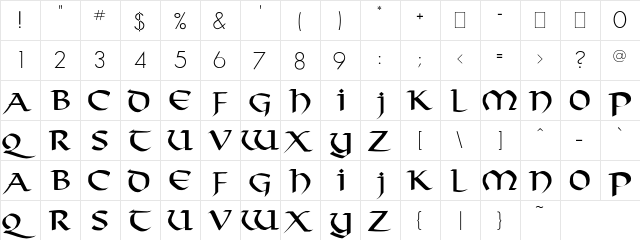
Crownler Regular
Design Context for Crownler Typeface
Crownler is a composed and adaptable typeface that performs quietly and consistently across a wide range of design contexts.